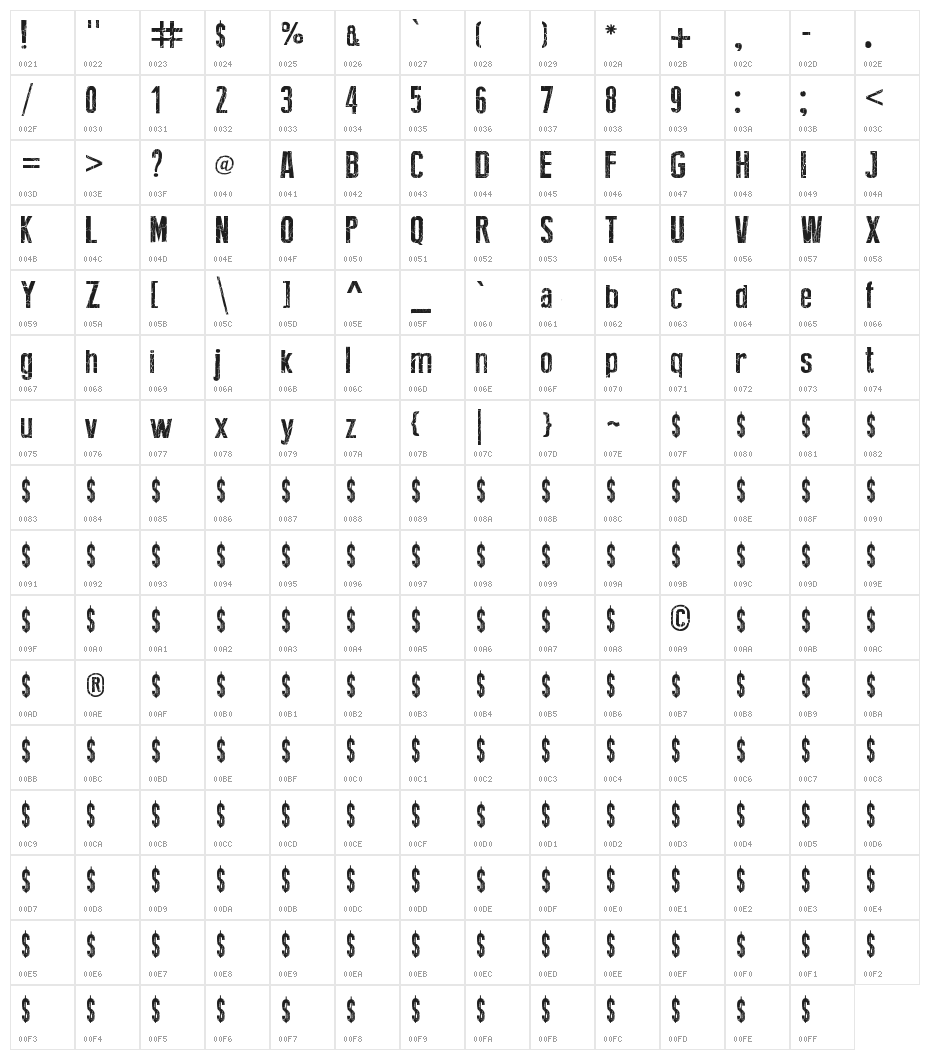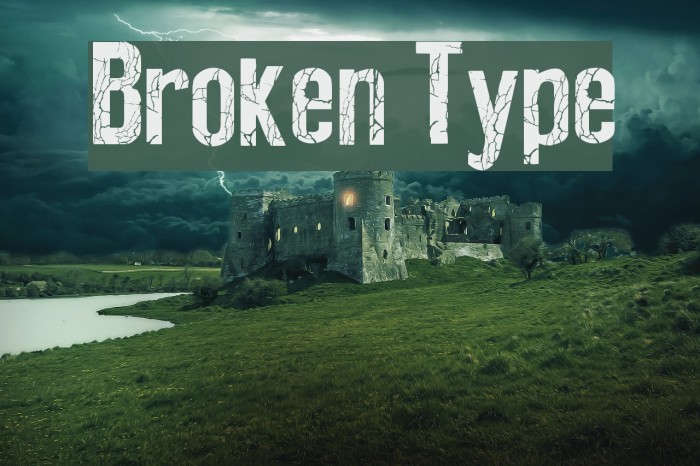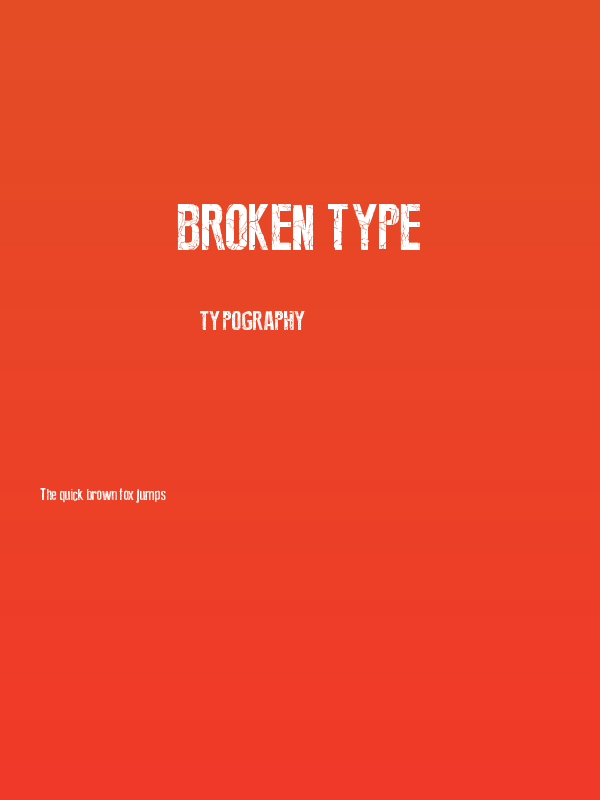
Broken Type Font
Broken Type Description
This font features a distressed, cracked texture that gives it a rugged and edgy appearance. The characters are bold and uppercase, with a consistent width that makes them stand out prominently. The lowercase letters maintain the same distressed style, ensuring uniformity across the typeface. Numbers and special characters are also included, each exhibiting the same broken, weathered look. This font is ideal for projects that require a gritty, urban feel, such as posters, album covers, or branding for alternative or rock-themed events.
| Overall Style | Edgy, Urban, Rugged |
| Proposed Projects | Ideal for posters, album covers, branding for alternative or rock-themed events. |